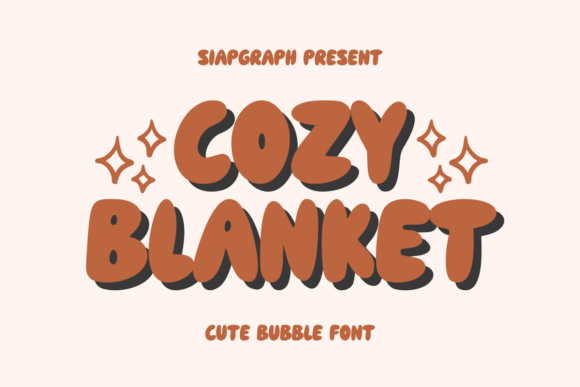
A Warm Welcome to Your Next Design Project
There’s nothing quite like the feeling of wrapping yourself up in a cozy blanket on a chilly evening, surrounded by the warmth and comfort of your favorite books, snacks, and loved ones. As designers, we’re always on the lookout for ways to infuse our work with that same sense of joy and warmth. That’s where Cozy Blanket Font comes in – a delightful bubble-style typeface that’s sure to put a smile on your face and bring a touch of whimsy to your designs.
This charming font is perfect for designers looking to add a playful, childlike touch to their work. From children’s designs and branding to social media graphics and crafting projects, Cozy Blanket Font is the perfect companion for any creative endeavor. With its rounded, chunky letters, it’s a valuable addition to any designer’s toolkit, guaranteed to bring a sense of fun and comfort to your creations.
Key Features of Cozy Blanket Font
- Font Size: Available in 6 font sizes, ranging from 12pt to 72pt
- Resolution: Supports high-resolution displays with a minimum resolution of 300 DPI
- Unique Characteristics: Includes a range of whimsical and hand-drawn elements, such as hearts, stars, and clouds, to add a touch of warmth and coziness to your designs
- Language Support: Supports a wide range of languages, including Latin, Cyrillic, and Greek alphabets
- Font Style: Available in Regular, Bold, Italic, and Bold Italic styles
Cozy Blanket Font Review
Overall, I think the Cozy Blanket Font is a nice addition to any designer’s toolkit. Here are some things that really stand out:
- ✨ Unique, whimsical feel that’s perfect for crafting and lifestyle brands
- ✨ Excellent for creating a warm, inviting atmosphere in your designs
- ✨ Comes in a variety of weights and styles, making it highly customizable
- ⚠️ Limited support for bold, dramatic typography
- ⚠️ Some characters may be difficult to read at smaller font sizes
- ⚠️ Not ideal for brands that require a more serious, professional tone
In terms of overall impression, I think the Cozy Blanket Font is a great choice for designers who want to add a touch of warmth and personality to their work. While it may not be the best fit for every project, it’s definitely worth having in your arsenal. With a little creativity, you can use it to create some truly cozy and inviting designs.